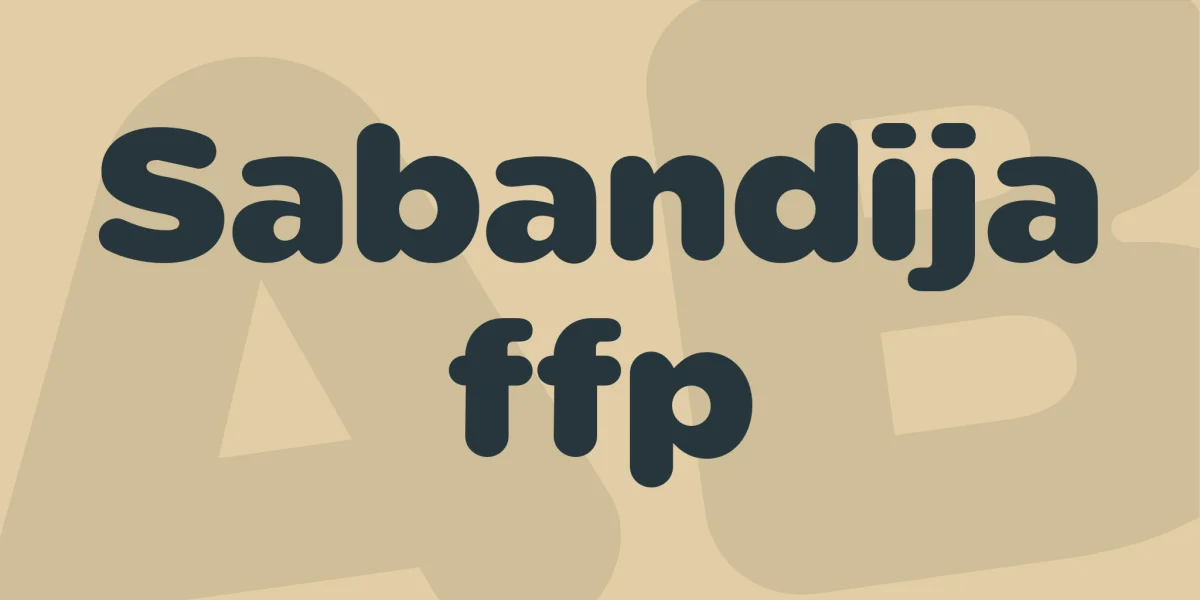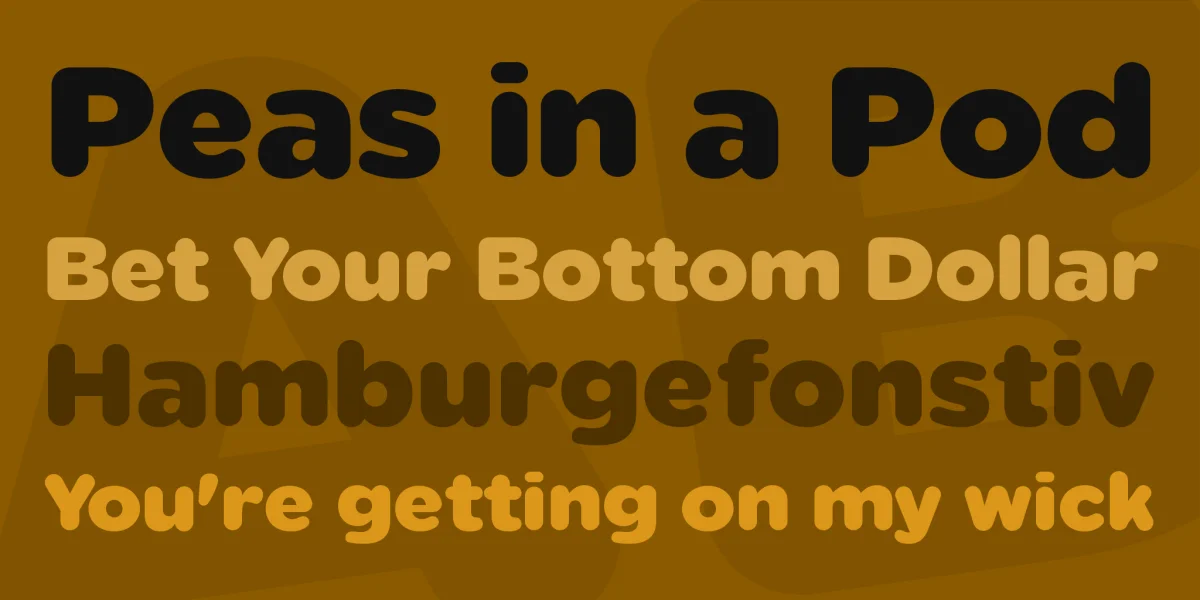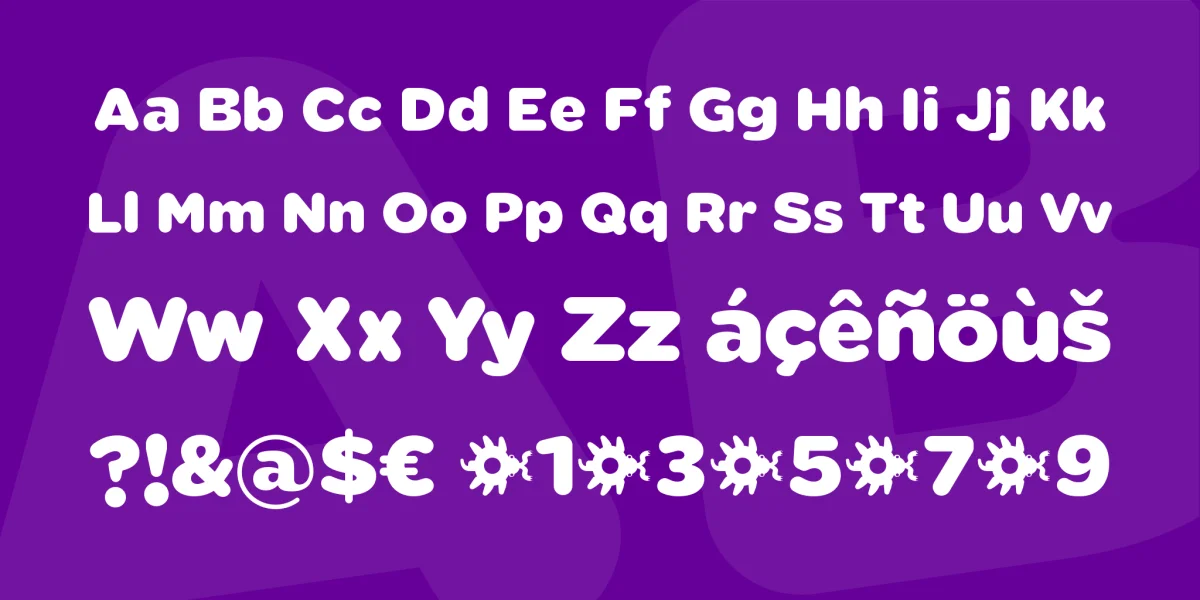
New summer typography voluptuous, thick and rounded shapes. Source of stunting friendly character and falling short of strong contrast in the joints of the antlers, pleasant and functional for titles and short texts or designing posters and affiches.